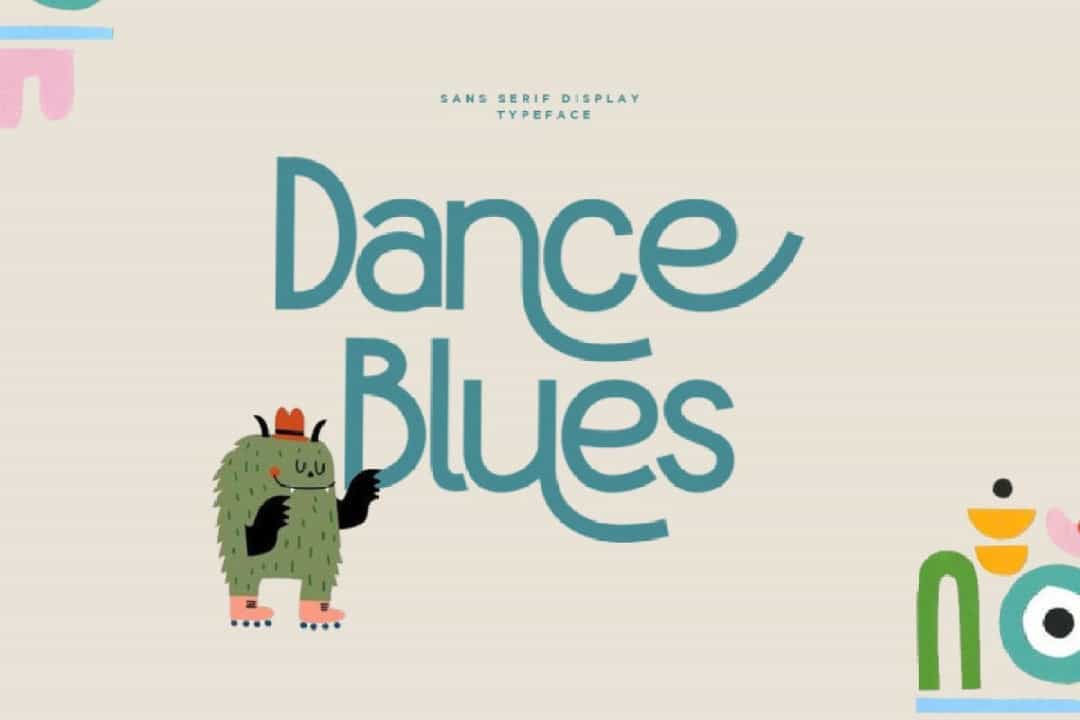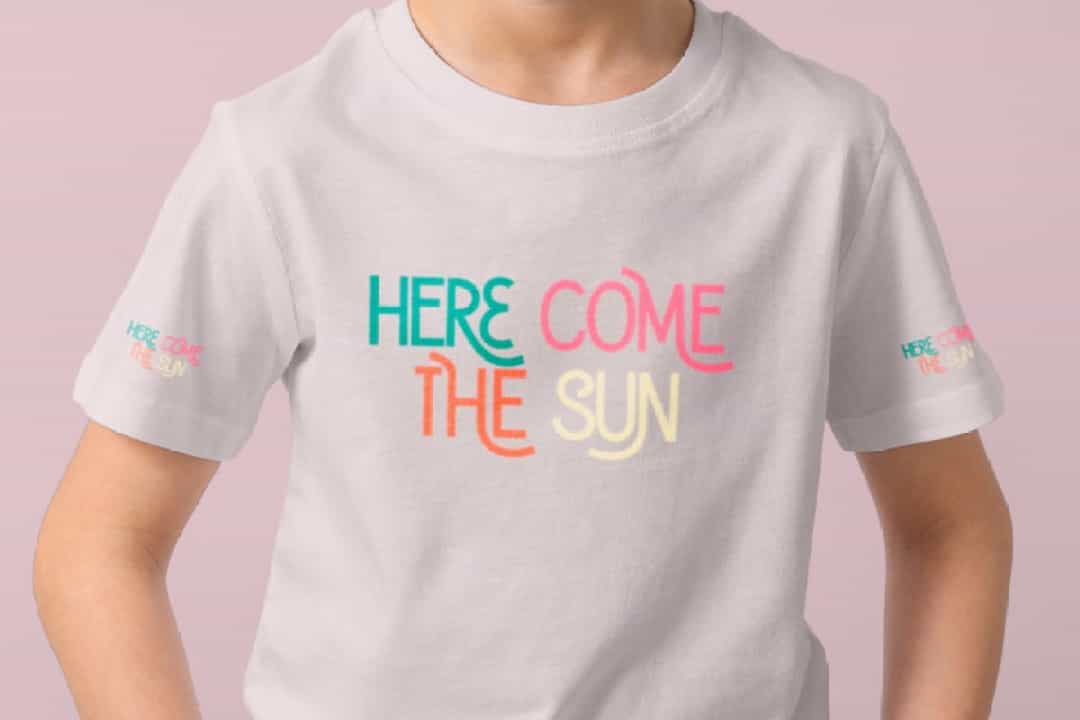
Introduce Dance Blues playful font, one of the most fun and unique sans-display fonts available today. This captivating and playful font adds an edge to any design with its distinctive, distinctive style that adds an inviting and playful element. Dance Blues would make an excellent choice for branding, logos and photography projects, watermarks, ads, social media posts invitations product designs invitation labels stationery wedding designs book covers special occasions or any design that requires handwriting!